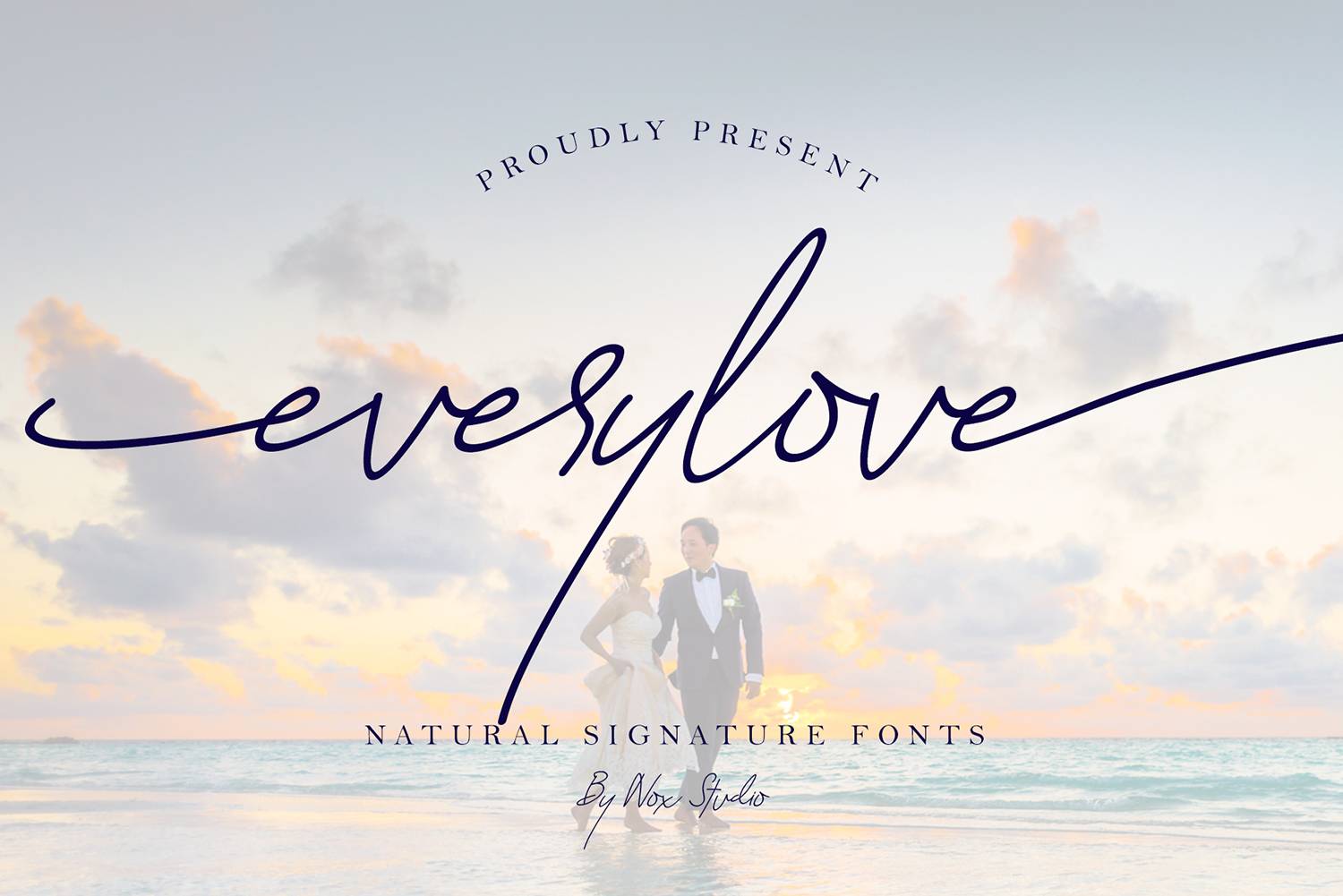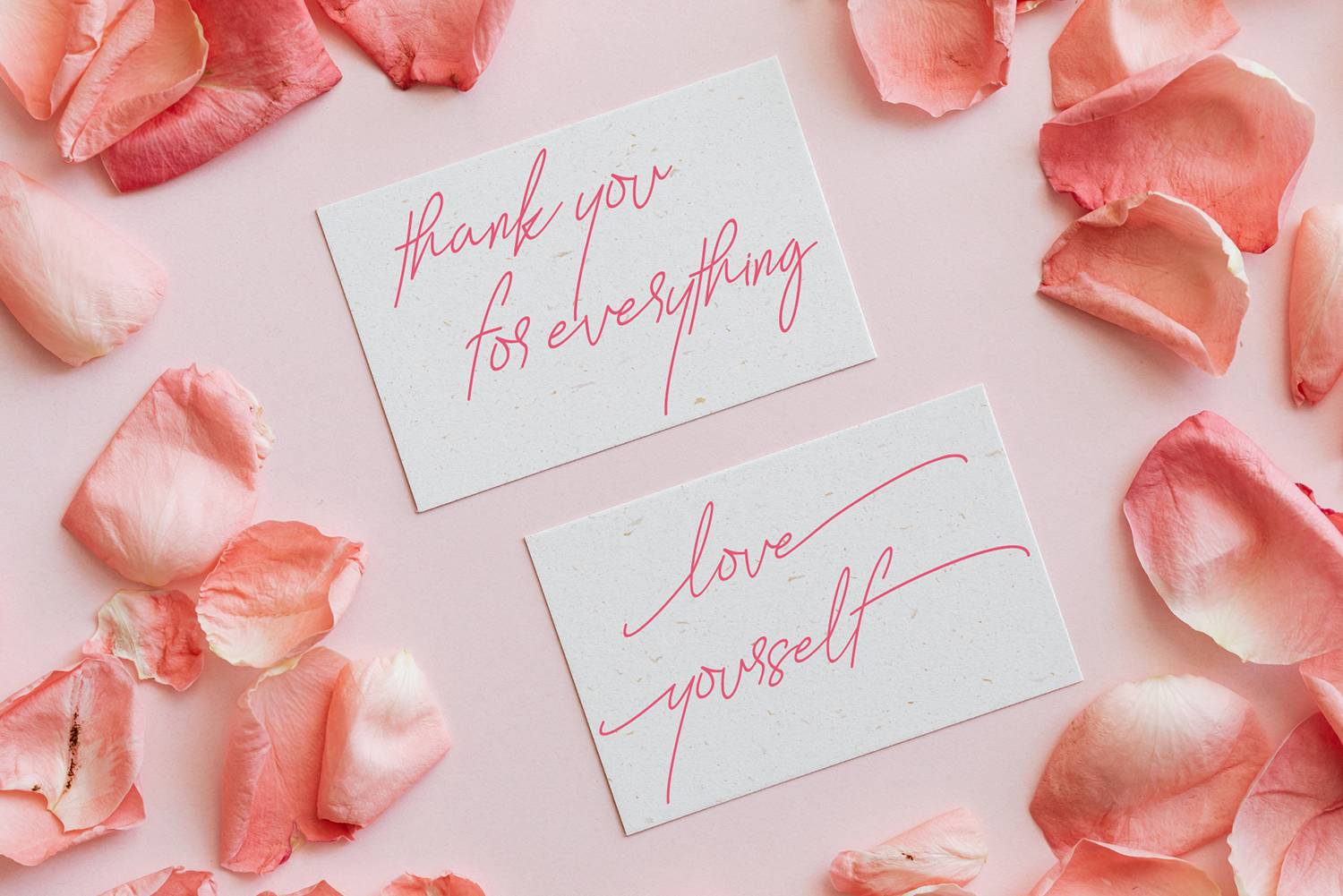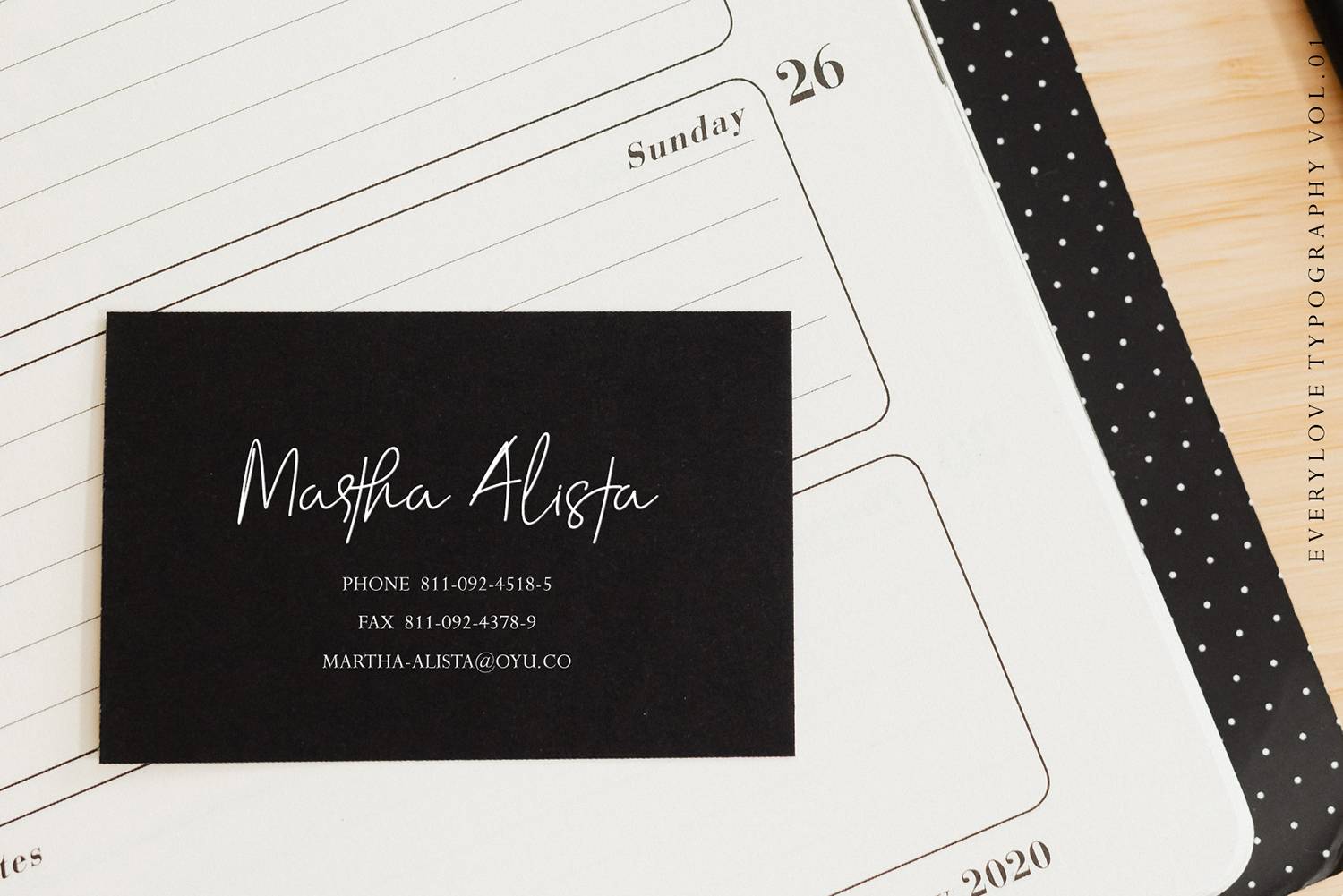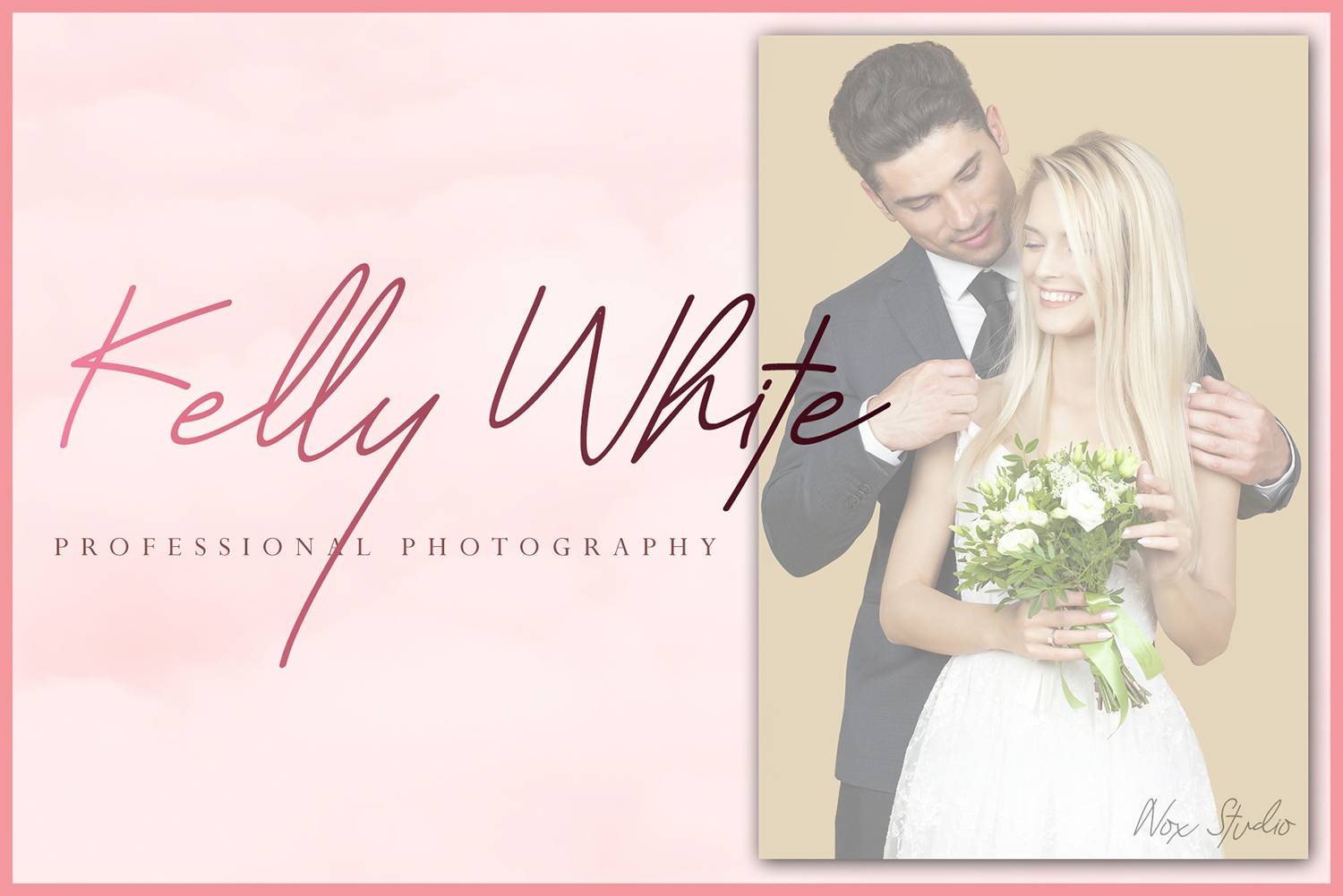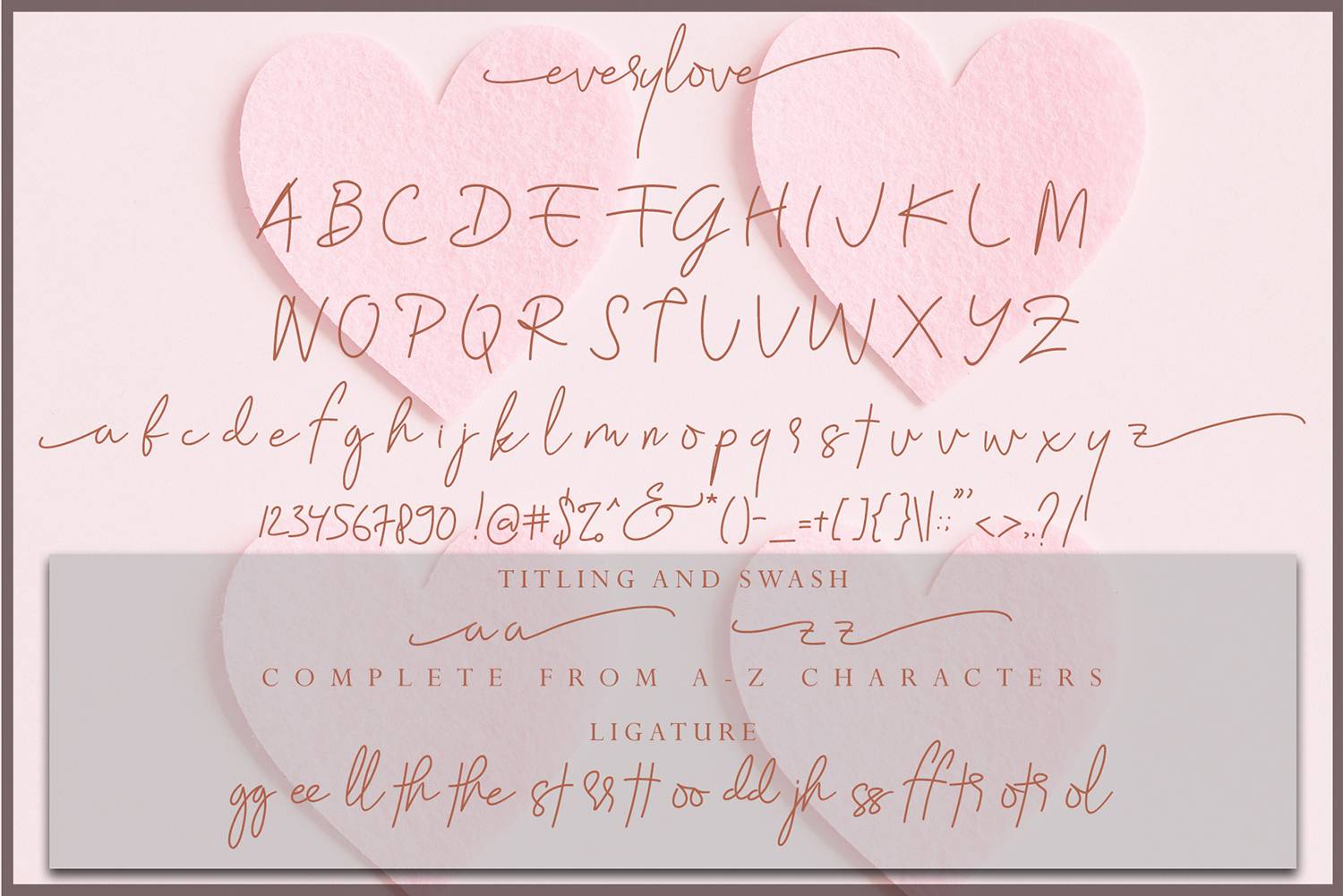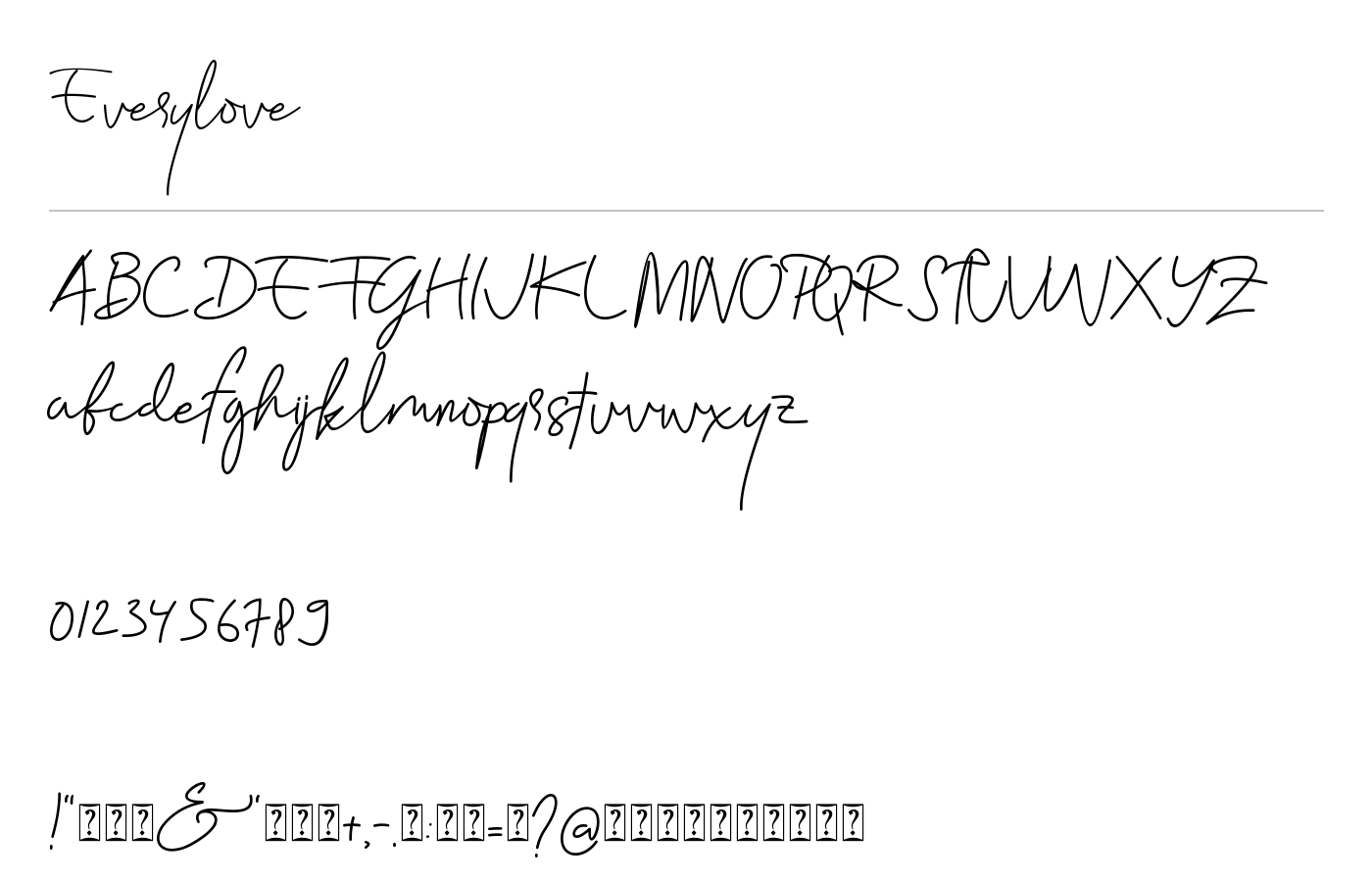
Everylove is a delicate, handwritten script font with a light weight and elegant, flowing strokes that evoke a personal, intimate feel. Its tall, slender letterforms and irregular, organic shapes make it perfect for creative projects needing a touch of charm and authenticity, such as invitations, branding, and lifestyle-focused designs. This font brings warmth and individuality, lending a relaxed yet stylish vibe to any text it graces.
Everylove Font
About Everylove Font
| Font family | Everylove Font |
| Designer | Nox Studio 2021 |